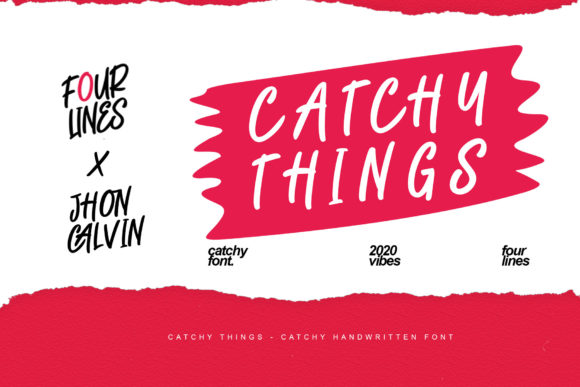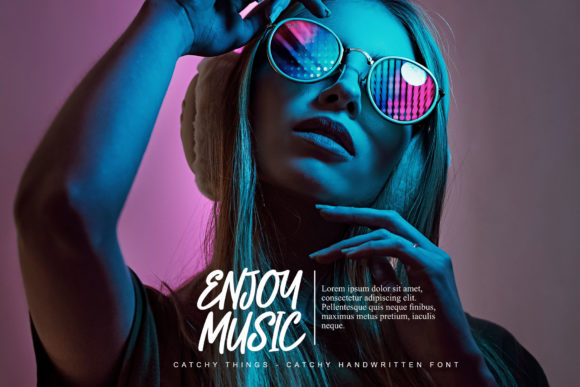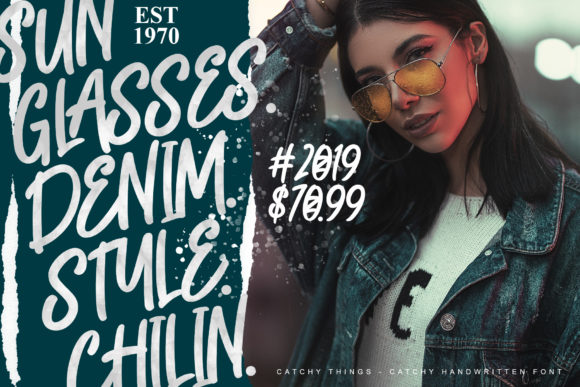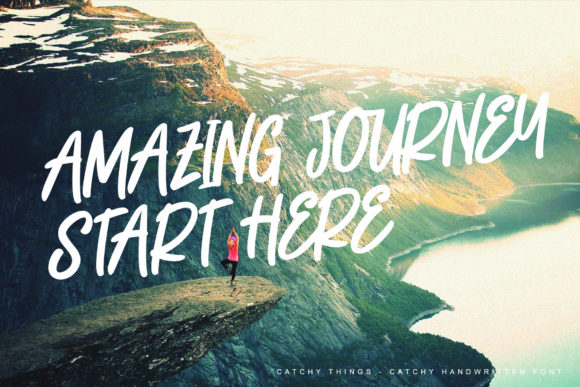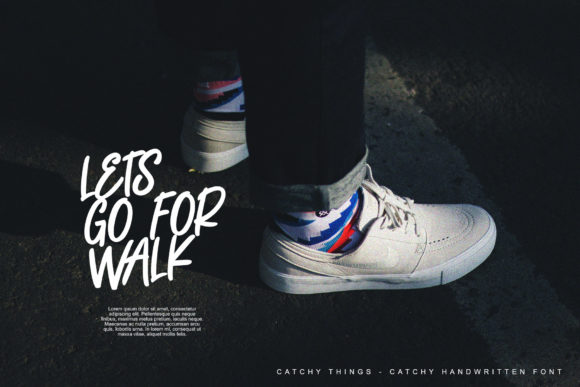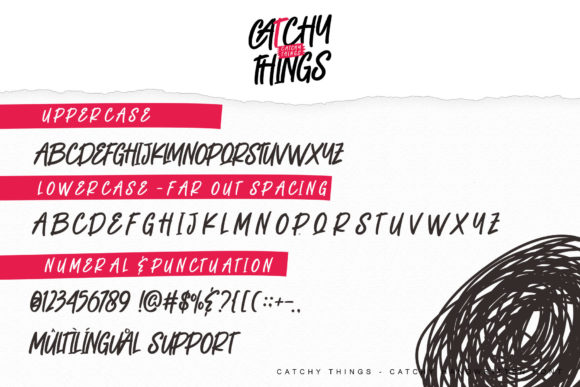
Catchy Things Font: Elevate Your Designs with a Super Trendy and Urban Styled Display Font
In the world of design, fonts play a crucial role in conveying messages, evoking emotions, and creating visual identities. For designers and crafters looking to add a touch of modernity and urban flair to their projects, Catchy Things Font is an excellent choice. This super trendy and urban styled display font is suitable for a wide range of applications, from branding and product packaging to invitations, quotes, t-shirts, labels, posters, and logos.
What Makes Catchy Things Font Stand Out?
Catchy Things Font boasts a unique and stylish design that instantly captures attention. Its urban and modern aesthetic makes it perfect for designers who want to create bold and eye-catching visuals. The font’s versatility allows it to be used in various contexts, from digital designs to print materials.
Key Features of Catchy Things Font
- Urban and Modern Style: Catchy Things Font features a sleek and contemporary design that adds a touch of sophistication to any project.
- Super Trendy: Stay ahead of the design curve with this trendy font that’s perfect for creating visually appealing designs.
- Display Font: Designed specifically for display purposes, Catchy Things Font is ideal for headlines, titles, and short texts.
- Versatile: Use it for a wide range of applications, including branding, product packaging, invitations, quotes, t-shirts, labels, posters, and logos.
Catchy Things Font is a valuable addition to any designer’s or crafter’s toolkit. Whether you’re working on a personal project or a client’s commission, this font can help you create stunning visuals that leave a lasting impression.
Use Cases for Catchy Things Font
- Branding: Establish a strong visual identity with Catchy Things Font, perfect for logos, business cards, and letterheads.
- Product Packaging: Make your products stand out on store shelves with eye-catching labels and packaging designs.
- Invitations: Create stylish and modern invitations for weddings, parties, and other special events.
- Quotes and Posters: Add a touch of urban flair to inspirational quotes, posters, and flyers.
- T-Shirts and Apparel: Design trendy and fashionable t-shirts, hoodies, and other apparel with Catchy Things Font.
Tips for Using Catchy Things Font
To get the most out of Catchy Things Font, here are some tips:
- Experiment with Sizes: Play with different font sizes to create visual hierarchy and emphasize important information.
- Pair with Other Fonts: Combine Catchy Things Font with other fonts to create a unique and interesting contrast.
- Use it Sparingly: As a display font, Catchy Things Font is best used sparingly to avoid overwhelming the viewer.
Catchy Things Font is a versatile and stylish display font that’s perfect for designers and crafters looking to add a touch of modernity and urban flair to their projects. With its wide range of applications and ease of use, this font is sure to become a staple in your design toolkit.